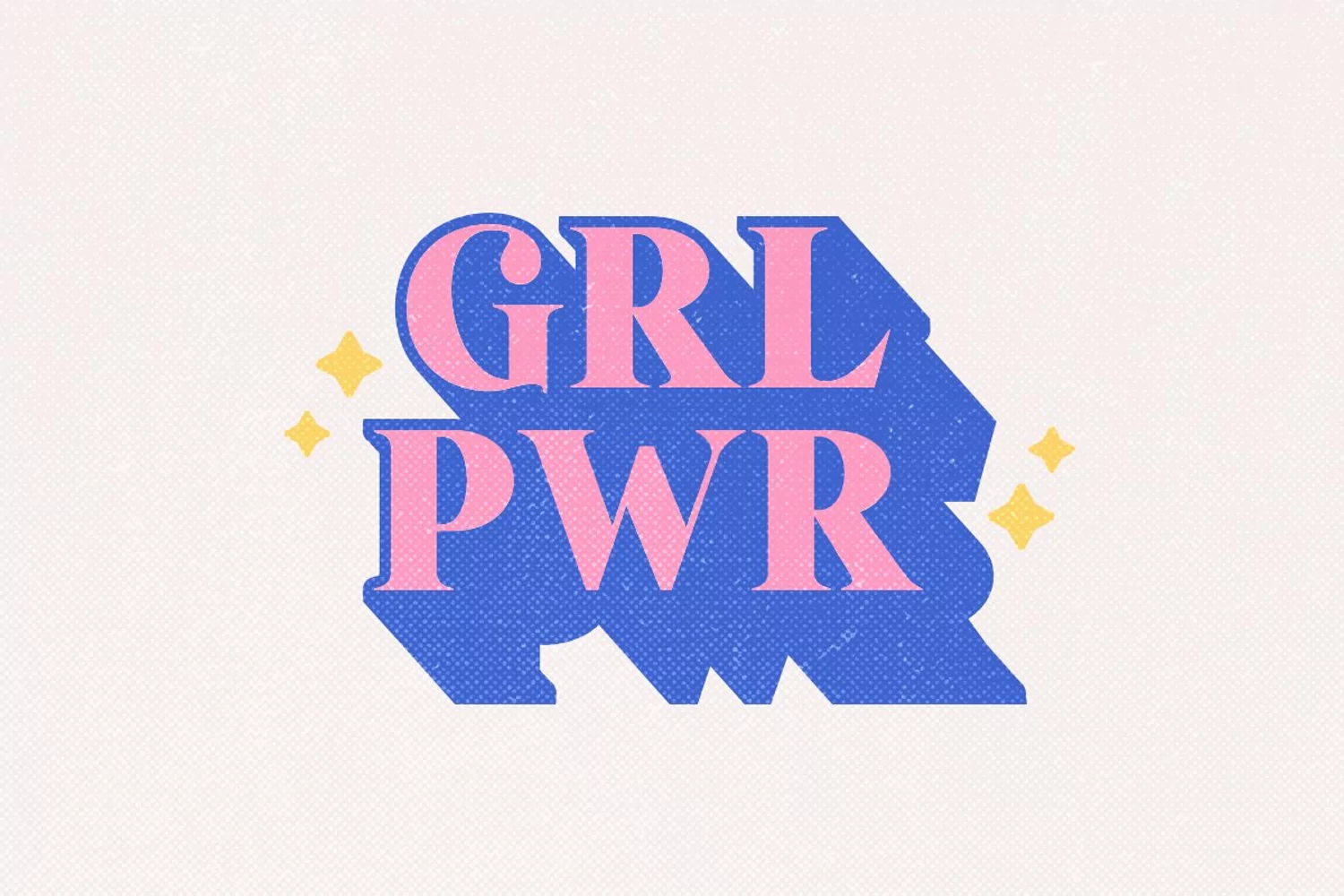
Strong Girls is a layered serif font that have 4 total font including regular, outline, extrude and long extrude. Like other layered font, you can stack all the style in the text so the design will looks 3D. You can use this font for any purpose like poster, sticker, vintage design, or anything. This font also support multi language.